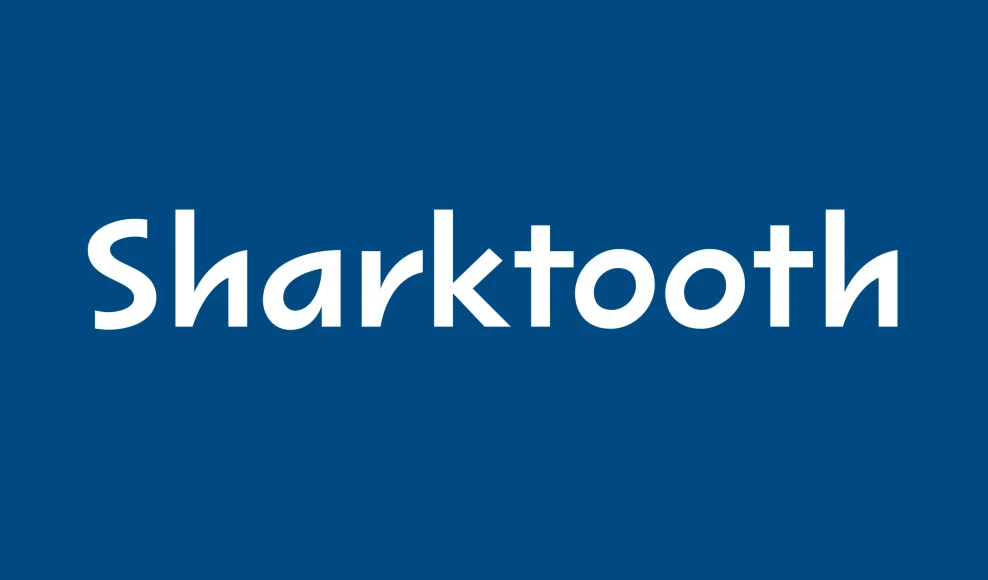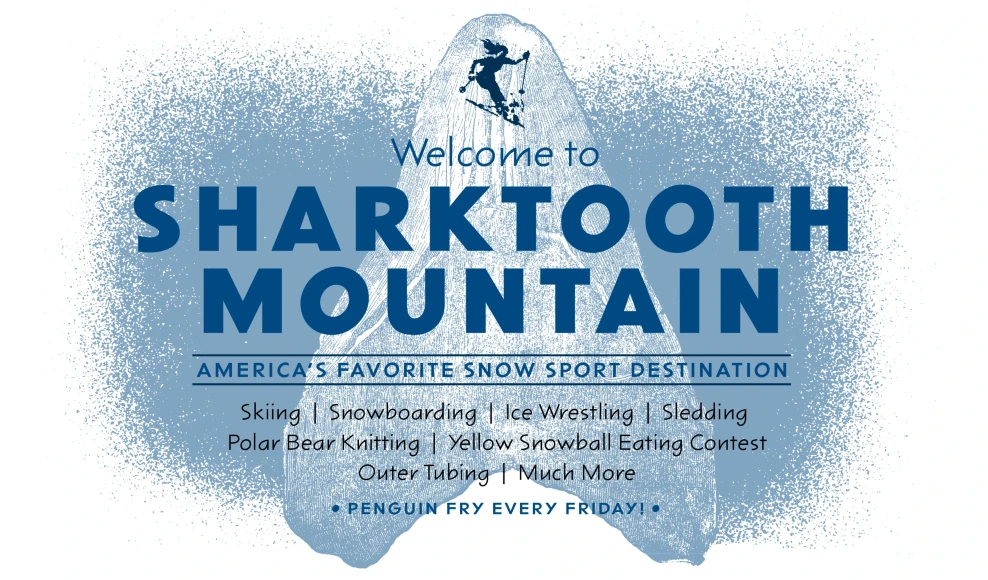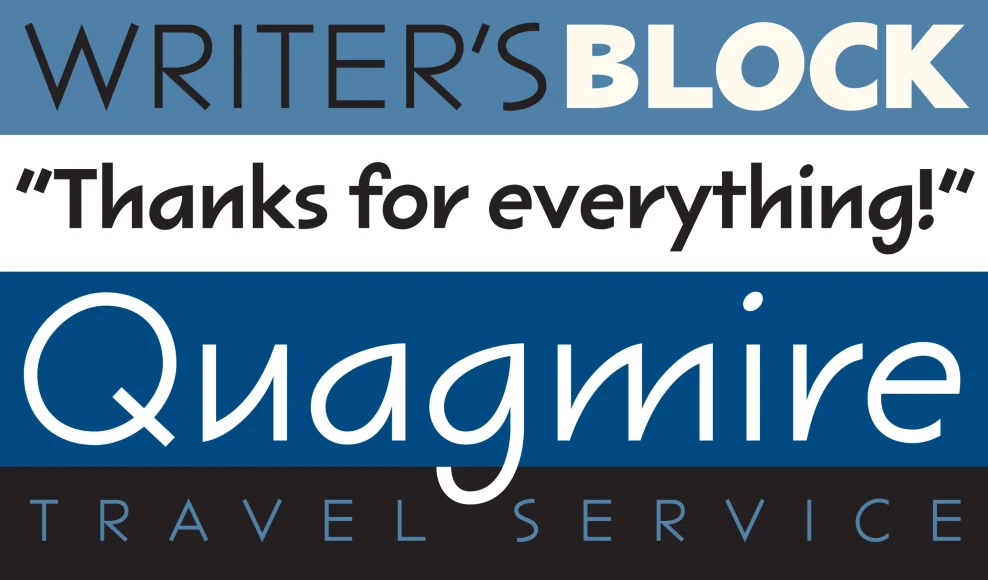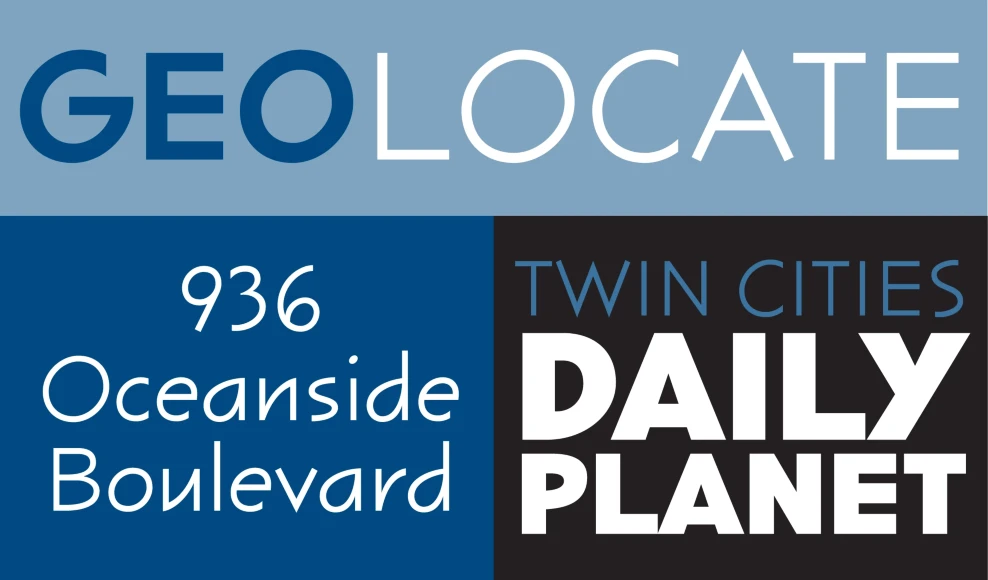
Sharktooth
By Mark Simonson
Sharktooth Regular
Sharktooth Bold
Sharktooth Heavy
Sharktooth (2000, 2003) began as an attempt to turn Felt Tip Roman into a “real” typeface. My approach was to take the essential underlying forms of Felt Tip Roman and rationalize them into regular typographic forms, simplifying and stylizing a subset of the existing shapes. In the end, only glimpses of Felt Tip Roman remained, and Sharktooth turned out distinctly different from its source. As a text face, it has a lively texture and is quite legible. The name comes from the sharp, angular shapes seen in many of the letters.